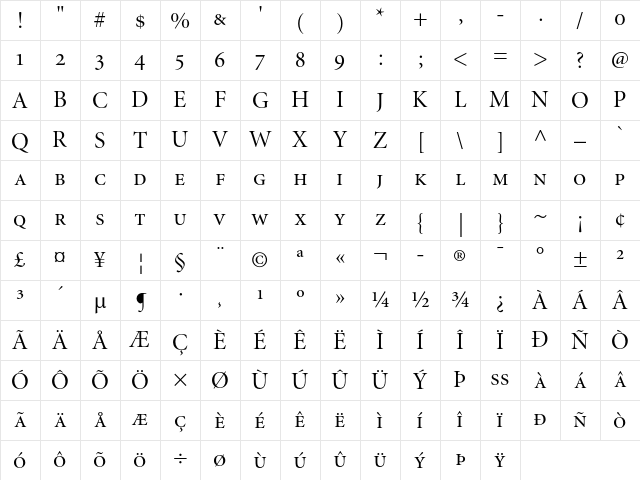
Complete Minion Display SC glyph index. Displaying only characters natively supported by Minion Display SC font.
Minion is built around its visual character rather than neutral utility - its distinctive forms are designed to make an impression at display sizes.